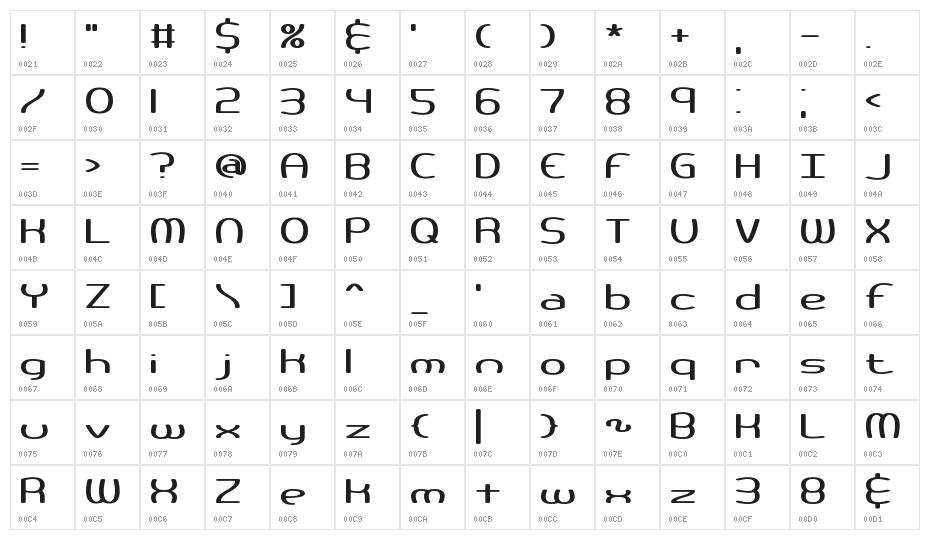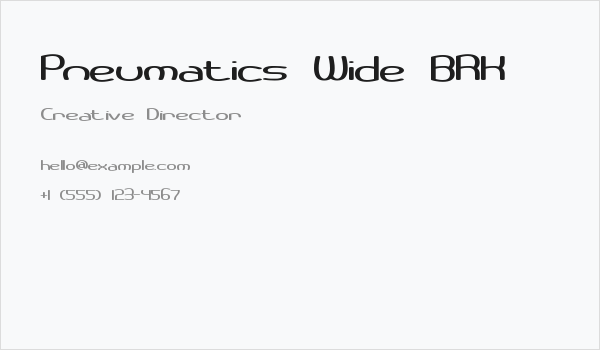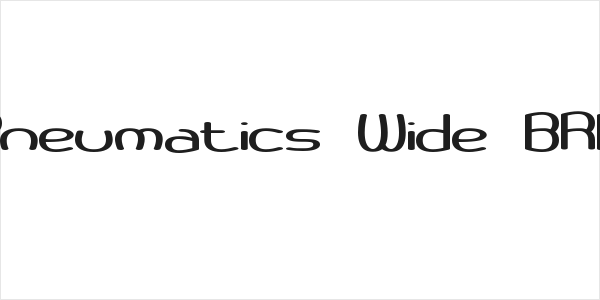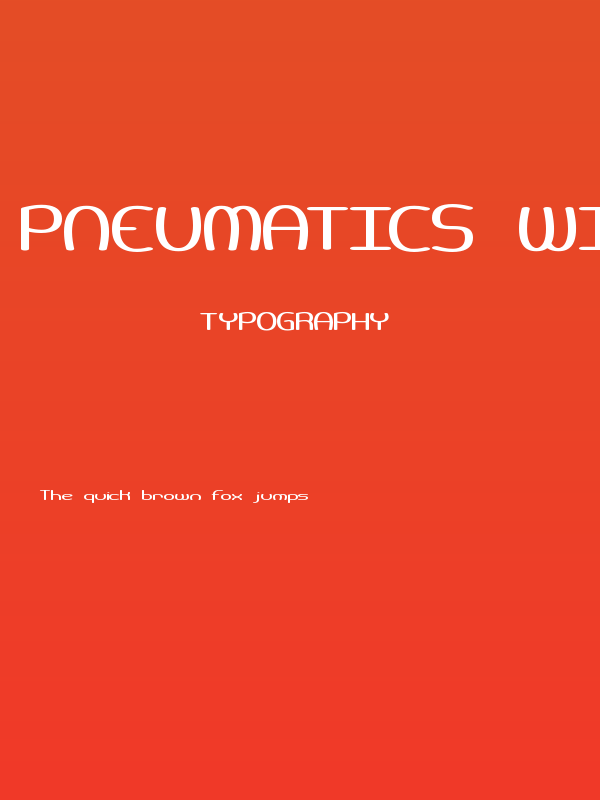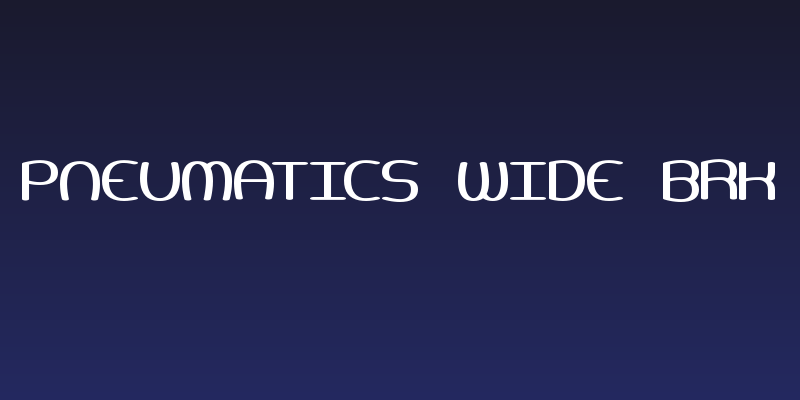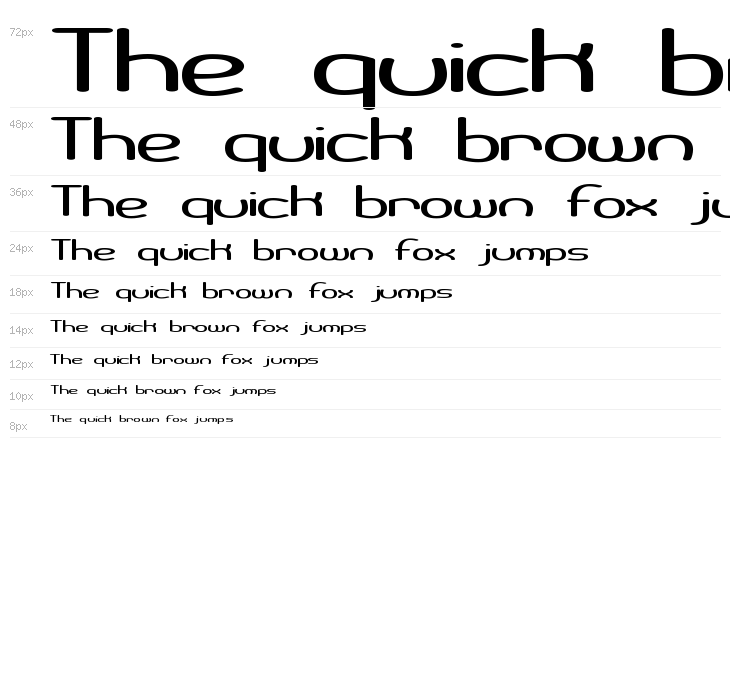
Pneumatics Wide BRK Font
Pneumatics Wide BRK Description
This font features a unique and futuristic design with rounded edges and a wide stance, giving it a modern and slightly playful appearance. The characters are evenly spaced, and the strokes are consistent in thickness, providing a clean and uniform look. The uppercase letters have a distinct geometric style, while the lowercase letters maintain a smooth and flowing form. The numerals are bold and easily legible, making them suitable for various applications. Special characters are included, maintaining the overall aesthetic of the font. This typeface is ideal for projects that require a contemporary and eye-catching design.
| Proposed Projects | Ideal for branding, advertising, posters, and digital media projects that require a modern and distinctive look. |